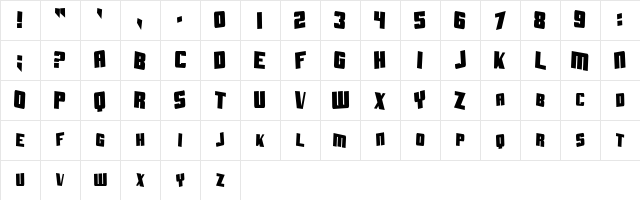
Aftershock Debris CondSolid Regular Free Font
Aftershock Debris CondSolid Regular
Design Context for Aftershock Debris CondSolid
Aftershock Debris CondSolid is a composed and adaptable typeface that performs quietly and consistently across a wide range of design contexts. Its narrow stance lets it pack a punch even in space-constrained designs.